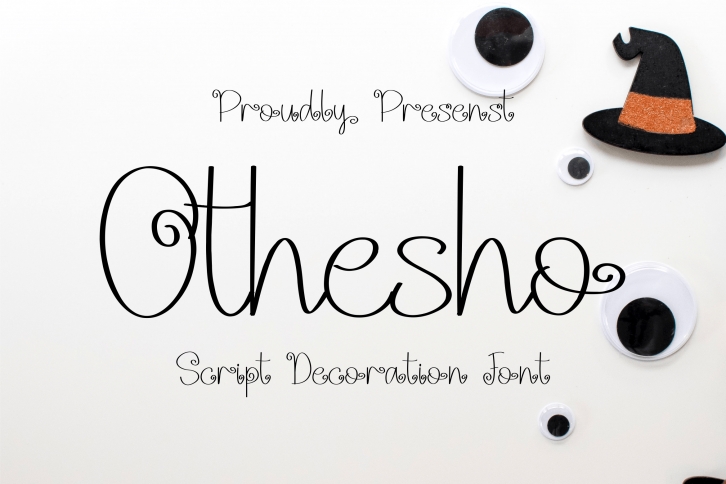
Otesho Font It has a elegant, classy look and modern. It’s a great font for fashion, apparel projects, signature, album cover,logo, branding, magazine, social media, & advertisements, but also works great for other projects.